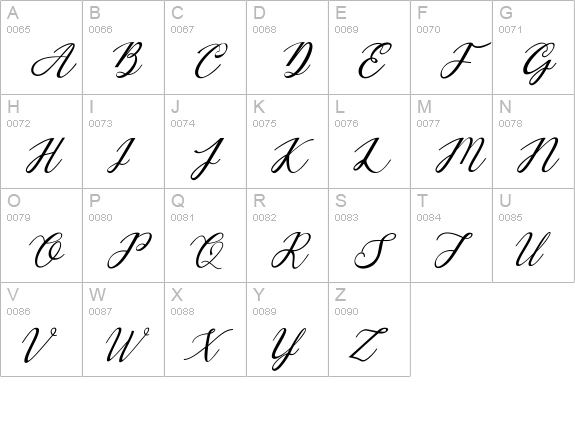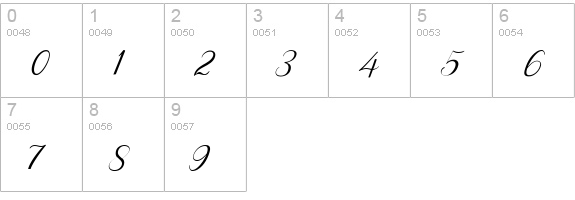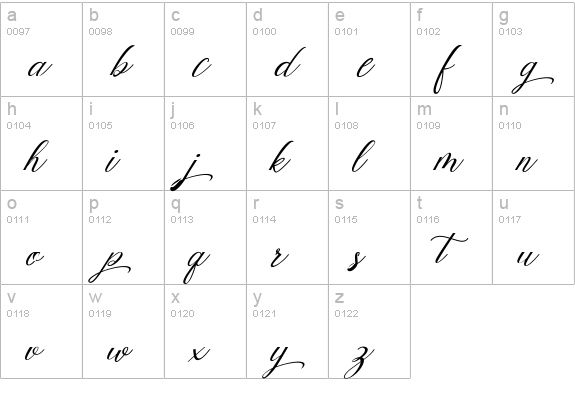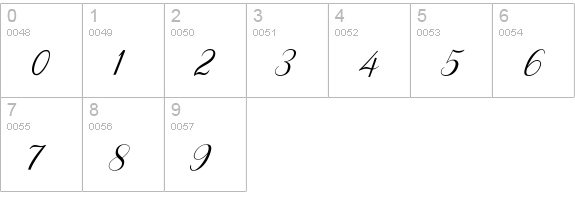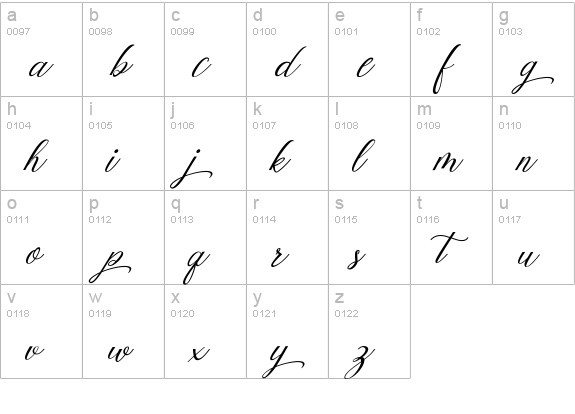
Mottingham Elegant Calligraphy Typeface Font Details
Mottingham Elegant Calligraphy Typeface font exudes sophistication and charm with its graceful curves and exquisite details. This font is perfect for adding a touch of elegance to any project, from wedding invitations to branding materials. Its smooth lines and fluid strokes give it a timeless and classic appeal that is sure to captivate any audience.